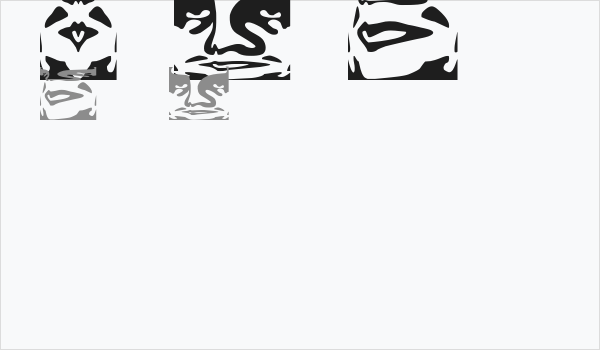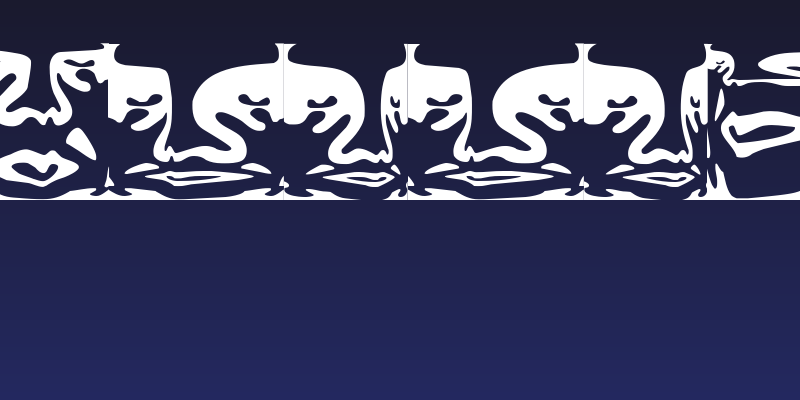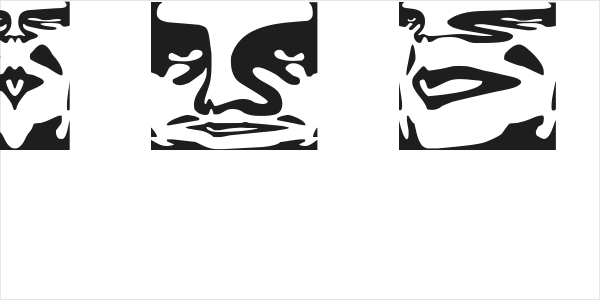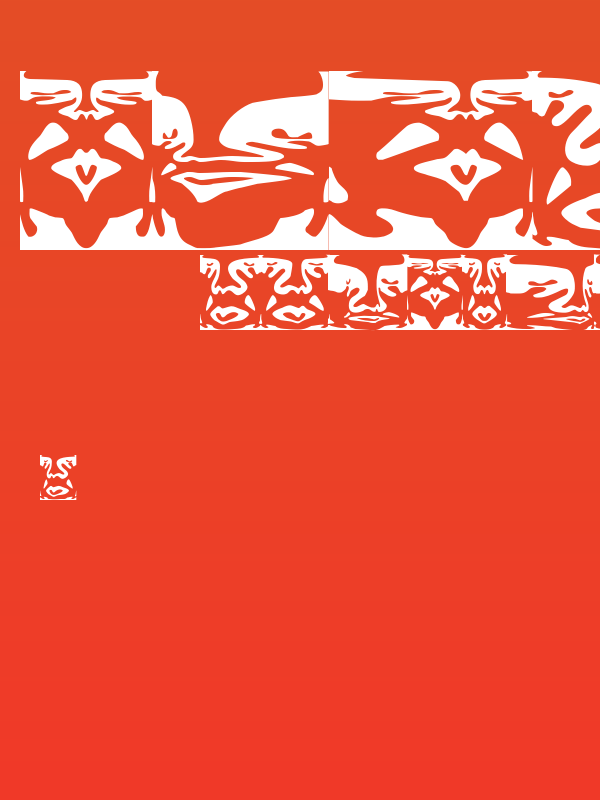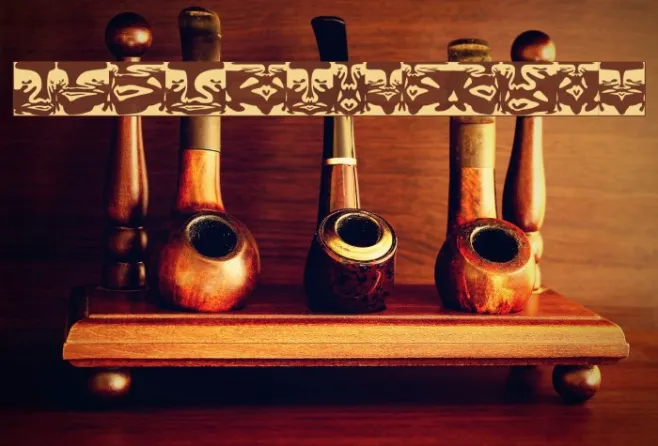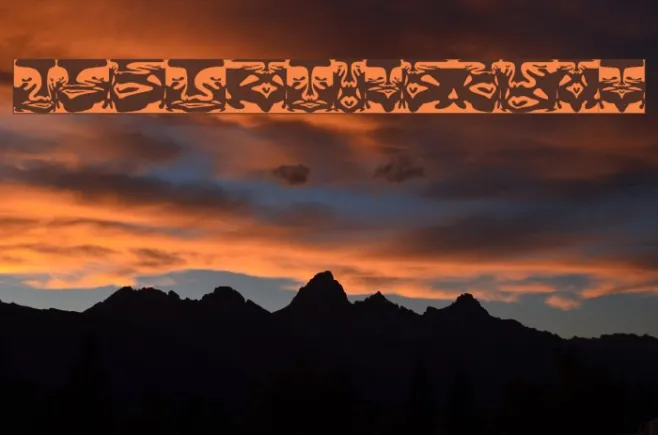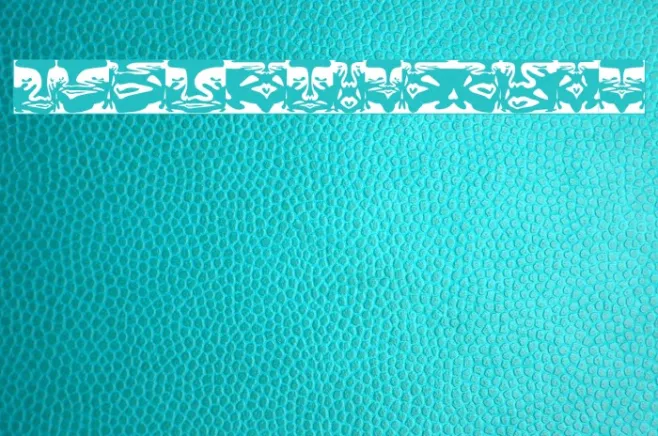
ObeyDadaCaps Font
ObeyDadaCaps Description
This font is a highly decorative and abstract design, characterized by its intricate and complex patterns. Each character is crafted with a unique artistic flair, featuring bold, swirling shapes that create a sense of movement and energy. The font's style is reminiscent of abstract art, with each letter appearing as a piece of a larger, cohesive artwork. The high contrast between the thick and thin strokes adds to the dramatic visual impact, making it a striking choice for artistic and creative projects.
| Use Case | Logos, Posters, Artistic projects |
| Proposed Projects | Ideal for artistic projects, album covers, posters, and any creative work requiring a bold, artistic statement. |